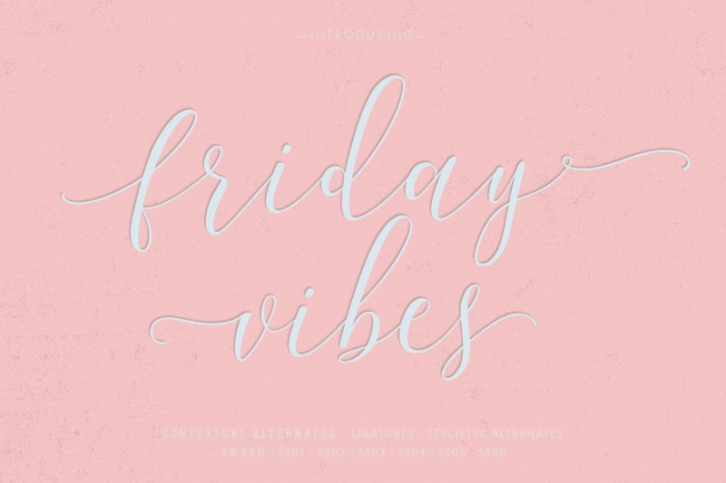
Very excited to launch the 3rd font this year, so get creative with our latest font Friday Vibes.
Friday Vibes completed with contextual alternate, ligature, stylistic alternate, swash, ss01-ss06. Inside the zip file you'll discover OTF and TTF font files,